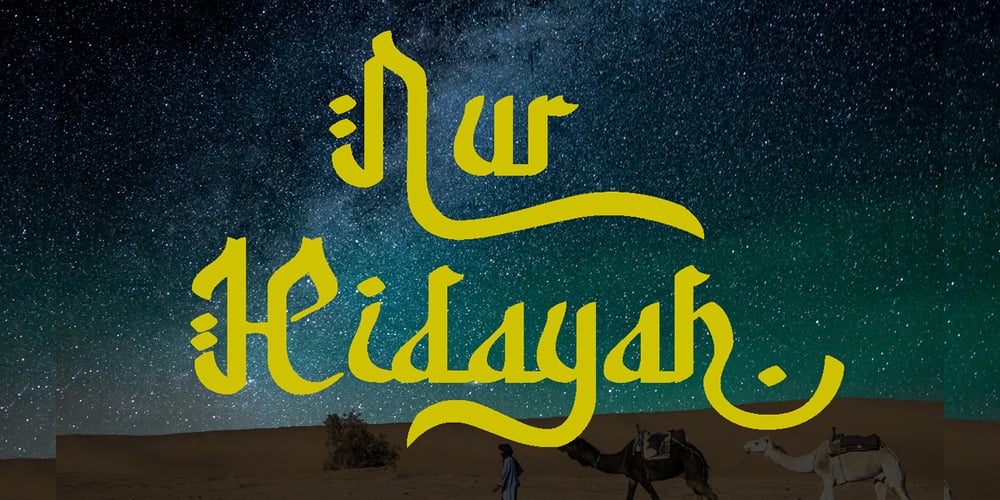
Nur Hidayah Font Family was designed by A A Ngurah A Krisna Teja and published by Anomali Creative. Nur Hidayah contains 3 styles and family package options. Introducing Nur Hidayah Arabic Calligraphic Fontthis is an Arabic display style font that weaves intellect with imagination in a harmonious flow of letterforms. Nur Hidayah Arabic Calligraphic Font demonstrates a mysterious beauty of Arabic typography which is found to be essential for narrative content titling. The font is also suitable for branding and visual advertising.in the Arabic Language, Nur Hidayah refers to the Holy Enlightment. It also indicates the person who’s allready get a clear bright enlightment in their spiritual journey. The font features a unique writing style with a solid geometric structure which suits titling and creative heading. Nur Hidayah Arabic Calligraphic Font consists of three (3) style; Regular, dotted and Bold.